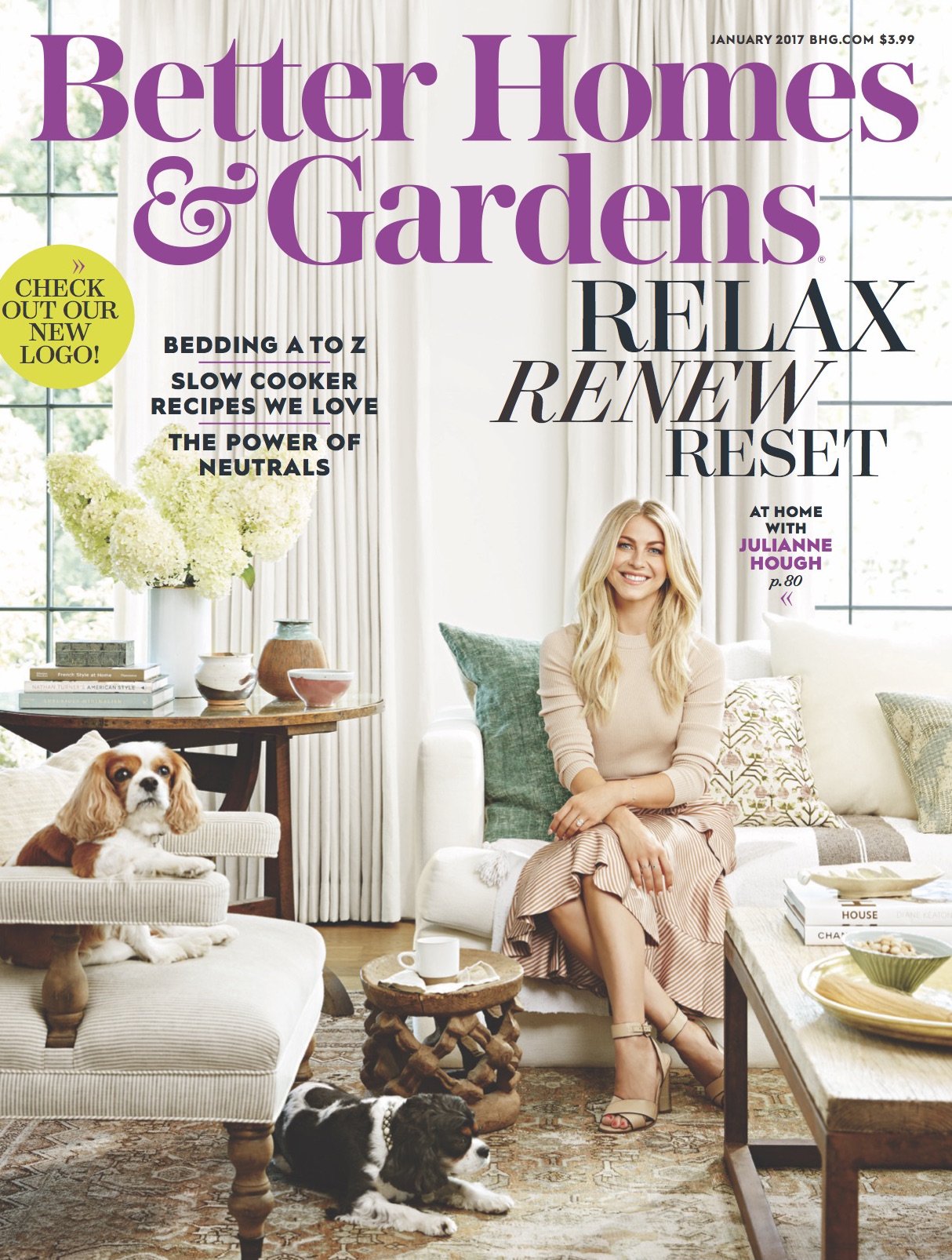
Better Homes & Gardens Font
BookBetter Homes & Gardens is a lifestyle magazine that provides inspiration and ideas for home improvement, gardening, cooking, and other aspects of everyday living. The magazine is published monthly and was first issued in 1922. The magazine's current logo debuted in 2017.
The logo uses a distinctive custom bold serif typeface and a trendy ampersand that was produced in collaboration with Lippincott. The closest font to the serif that we can locate is Austin Semi Bold from Commercial Type.